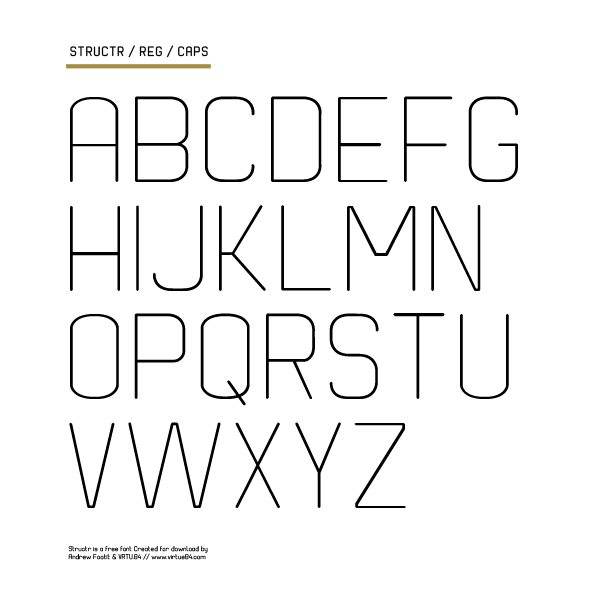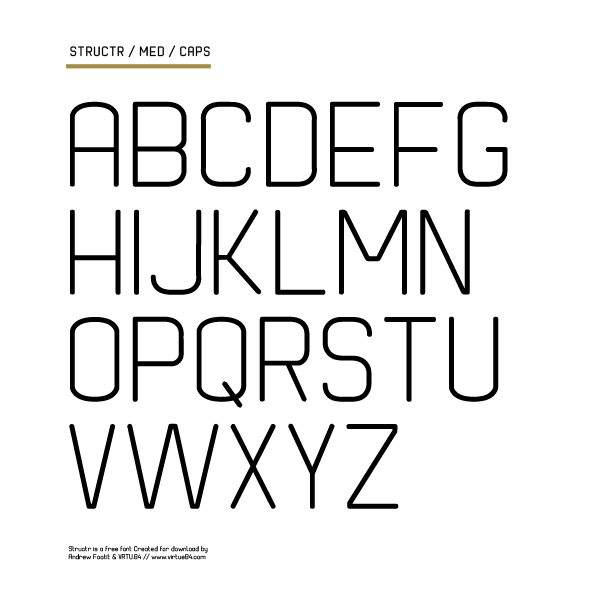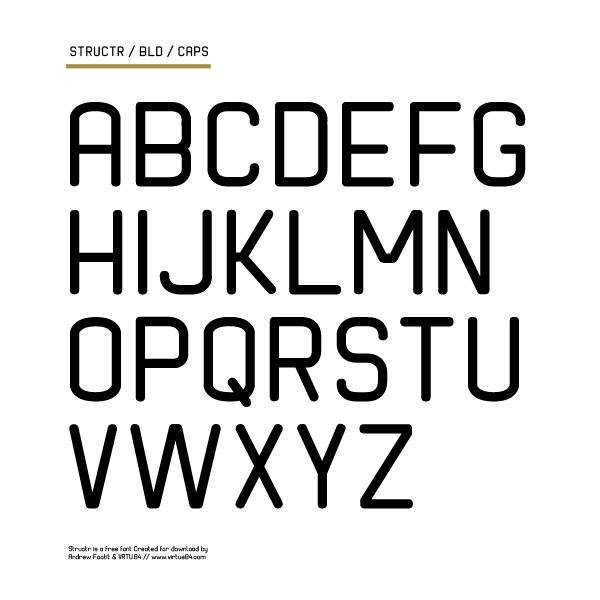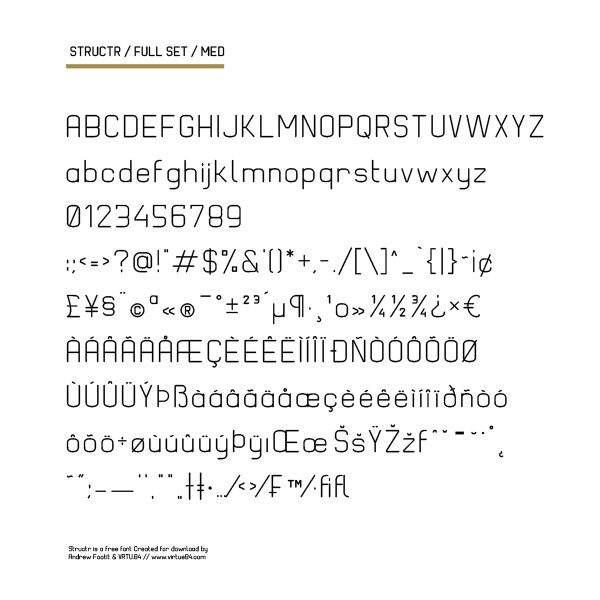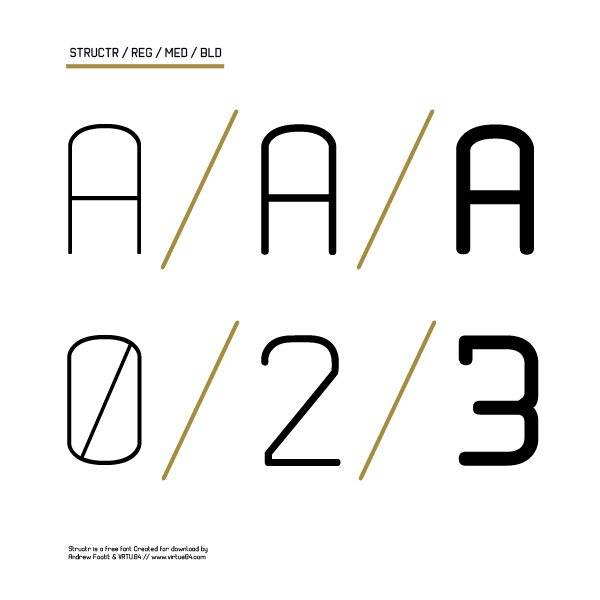
Fonts Free Font Of The Day #40 – STRUCTR Font by Angga Erlangga June 24, 2014 Structr Font New rounded sans-serif font free for download. Free for use on your project. Download Angga Erlangga My name is Angga Erlangga Sakti, 22 years old, from Bandung, West Java, Indonesia. Back-end and sometimes do front-end, Technical Support at Themes Awesome. Animals lover and coffee addict. No Smoking = SPBU.